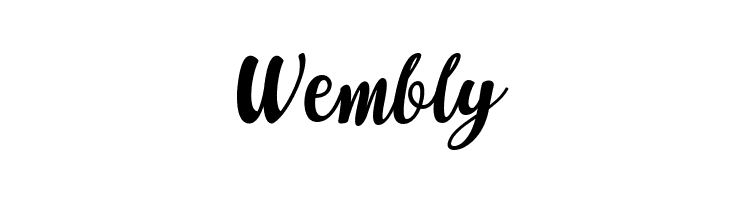
Dohearts Font
A playful and expressive handwritten script font with dynamic strokes.
Dohearts Italic Font
A cursive, italic font with a flowing, elegant style.